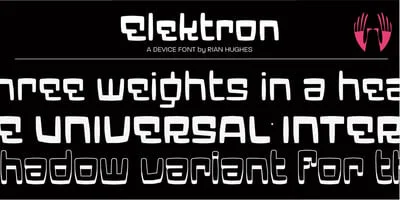
Elektron Font
Elektron Font is perfect for electronic music production, synthesizer equipment branding, digital audio workstation interfaces, electronic dance music promotions, tech startup logos, electrical engineering documentation, circuit board designs, electronic component packaging, innovative technology marketing, and futuristic entertainment venues.
What makes Elektron Font exciting is its electronic precision that perfectly captures the digital accuracy and technological innovation found in electronic music production and advanced circuit engineering. This typeface features sharp letterforms with electronic proportions and circuit-inspired details that evoke the precise control and infinite possibilities of electronic sound synthesis and digital signal processing. The font's technological personality and electronic authenticity make it ideal for music technology brands seeking to convey innovation, precision, and the creative potential that comes from electronic music mastery and digital audio excellence.
Elektron Font family includes circuit-precise weight variations and electronic alternatives that enhance its technological appeal while providing design flexibility for music technology and electronic applications. The font features digital ligatures, circuit-themed ornaments, and electronic character variations that create authentic electronic atmosphere for music technology and digital innovation branding.
Music technology companies and electronic manufacturers consistently choose Elektron Font for projects requiring authentic electronic appeal and technological credibility. The font's precise character excels in applications targeting electronic musicians, audio engineers, and technology innovators who appreciate genuine electronic music excellence and digital precision. Whether you're designing for synthesizer companies, electronic music studios, or digital audio equipment, this technological typeface delivers the electronic authenticity and digital precision that resonates with audiences seeking genuine electronic music innovation and the technological excellence that defines electronic sound production and digital audio mastery.